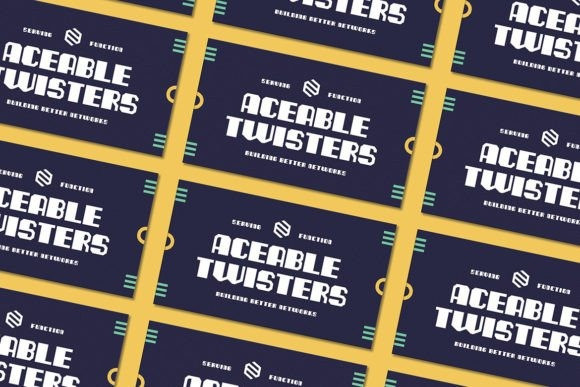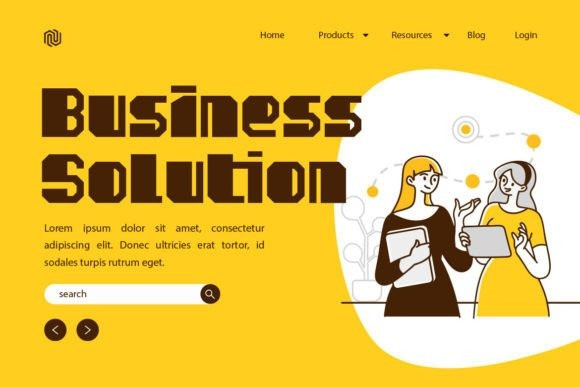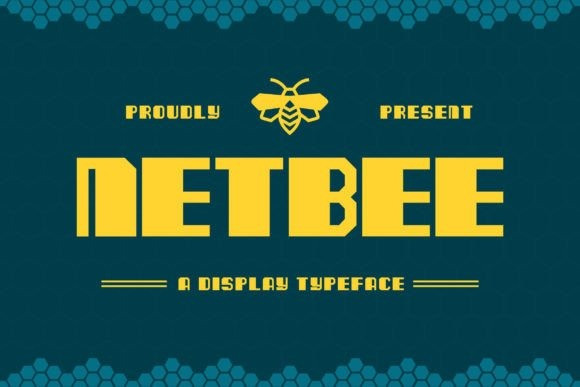
Netbee Font
Netbee Display Font is a unique display typeface.
This font is sharp and looks similar to a bee.
Use this font to achieve an exquisite, yet subtle look and maximum versatility.